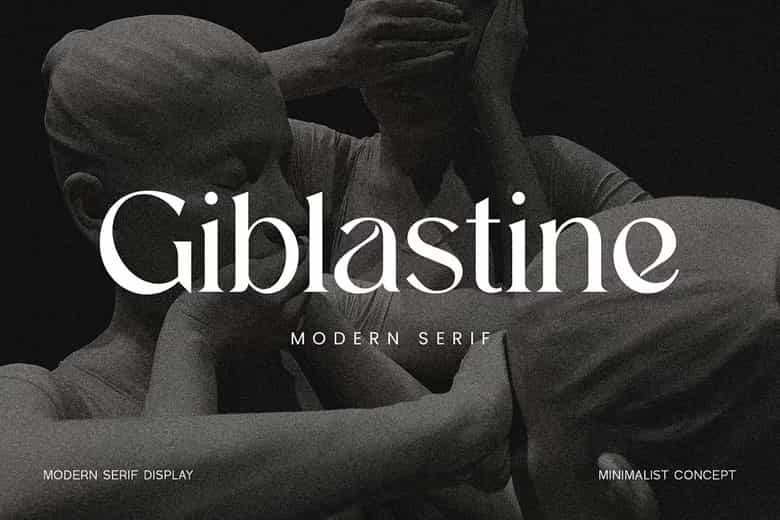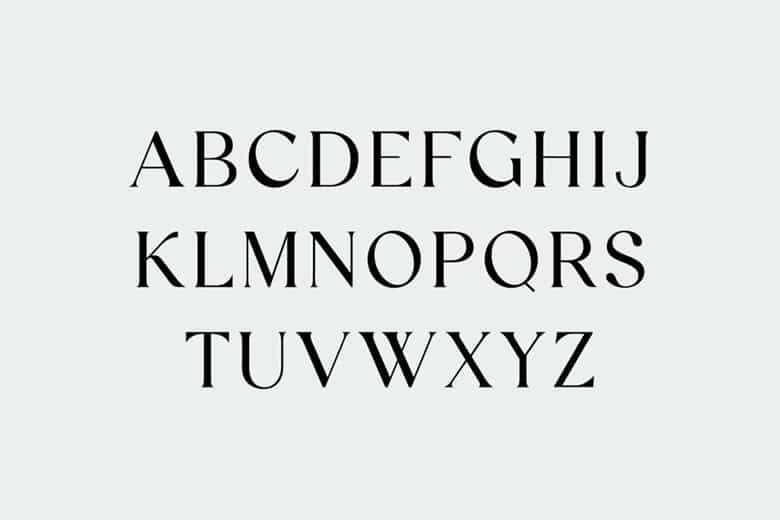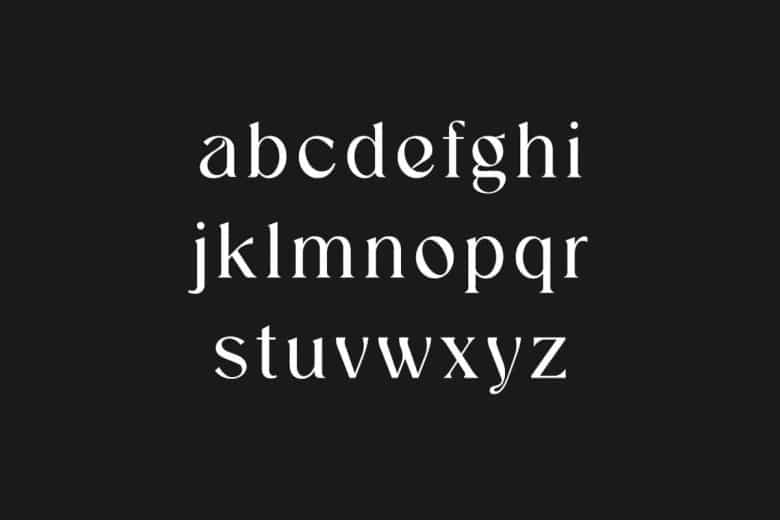
Giblastine is a new modern display serif font. This font is versatile enough to be used for almost any project such as logo, weddings, quotes and many other, magazine or books covers, website headers, branding and etc. It is also true that fashion branding or editorial design also have both the masculine and feminine qualities.